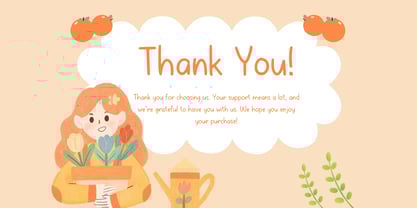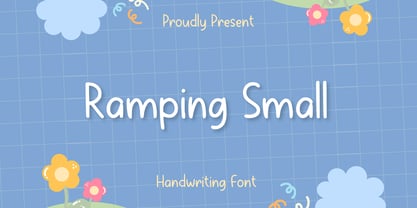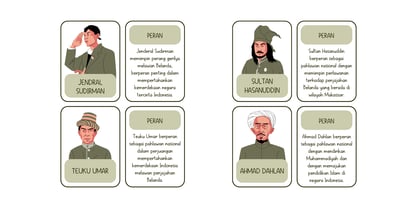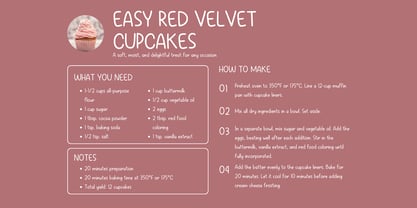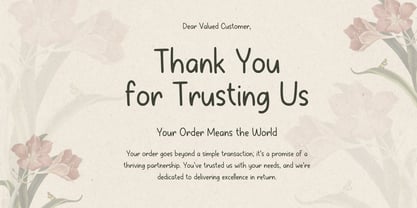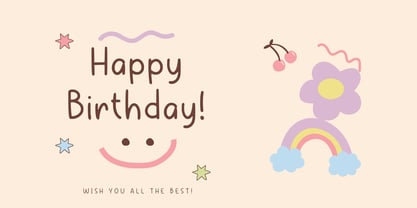
Ramping Small
by Aisyah
The Ramping Small Font Family was designed by Nur Aiysah Amalia and published by Aisyah. Ramping Small contains 1 styles. More about this family
Presenting 'Ramping Small', a captivatingly enchanting font with a slim and elongated design. Its reedy and long-drawn-out structure is perfect for enhancing the elegance and allure of lengthy texts or large-scale projects. The unique outline of 'Ramping Small' seizes attention, making it an excellent choice for designs that require a distinctive and rejuvenating touch. Experience the fusion of beauty and practicality with the 'Ramping Small' font where sophistication meets utility!
Designers: Nur Aiysah Amalia
Foundry: Aisyah